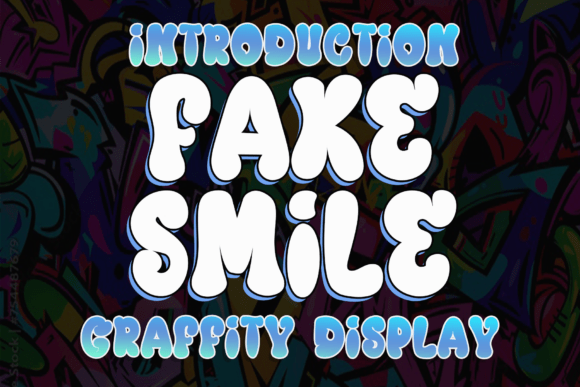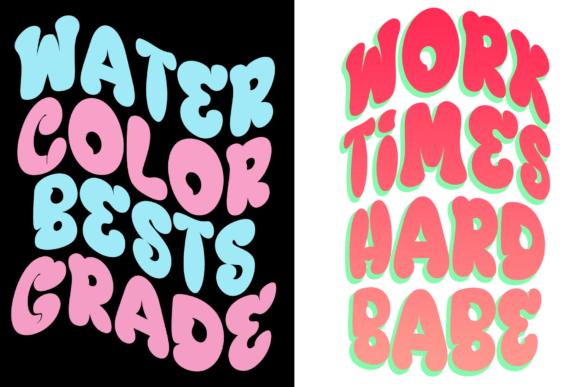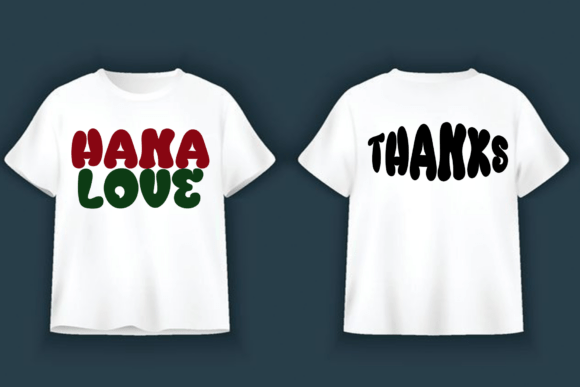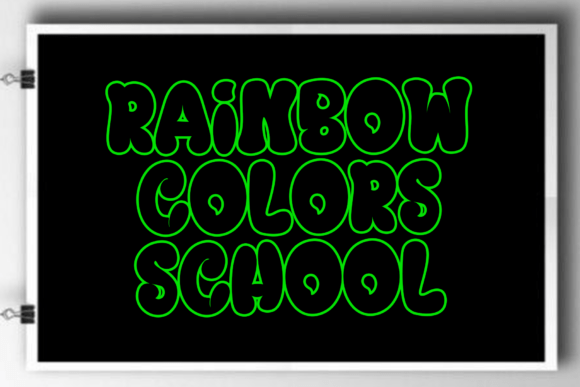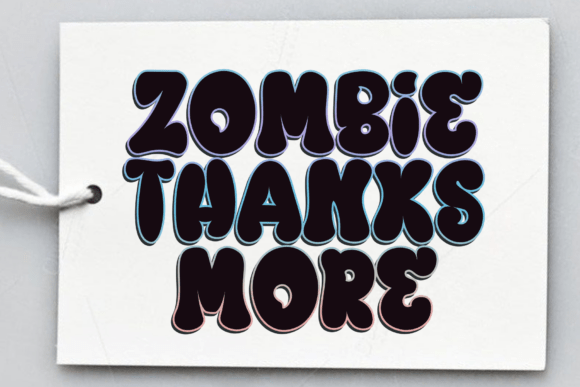
Unlocking the Power of Playful Defiance: The Fake Smile Font
Have you ever found yourself doodling in a notebook, letting your pen wander across the page as you try to capture the essence of a particular mood or feeling? That’s exactly what happens when you come face to face with the Fake Smile Font – a bold, bubbly graffiti display font that radiates playful defiance and urban attitude.
Designed to be the perfect accompaniment to youthful rebellion and expressive street art, the Fake Smile Font brings a vibrant, almost satirical character to every project it’s used in. Its inflated, rounded letterforms and cartoon-like energy make it ideal for designs that want to be noticed with a wink of irony.
Fake Smile Font Key Features
- Unique Characteristics: The font’s distinctive, hand-drawn design and subtle texture give it a unique, organic feel that sets it apart from other fonts.
Review of “Fake Smile Font”
Overall, I’d say that “Fake Smile Font” has some redeeming qualities, but it also has some major drawbacks. Let’s dive into the good and the bad.
- Unique and quirky design: The font has a distinctive, hand-drawn feel that’s sure to stand out in a crowd.
- Expressive: The font conveys a range of emotions, from subtle to over-the-top, making it perfect for creative projects.
- Highly customizable: The font comes with a range of ligatures, swashes, and alternates that can be mixed and matched to create a unique look.
- Limited legibility: The font’s irregular shape and unusual letterforms can make it difficult to read at small sizes or in certain contexts.
- Not suitable for body text: Due to its expressive nature, the font is better suited for headlines, titles, and other attention-grabbing applications.
- May require adjustments: Depending on the project, you may need to make adjustments to the font’s spacing, kerning, or color to get the desired effect.
Overall, I think “Fake Smile Font” is a great choice for designers who want to add a touch of whimsy and personality to their work. However, it’s not a font for everyone, and it may require some extra effort to get the most out of it.
Use the Fake Smile Font to add a touch of humor or irony to your designs. It’s perfect for social media graphics, memes, and advertisements.
Experiment with different font sizes and colors to create a bold and eye-catching effect.
Combine the Fake Smile Font with other fonts and graphics to create a unique and engaging visual identity.